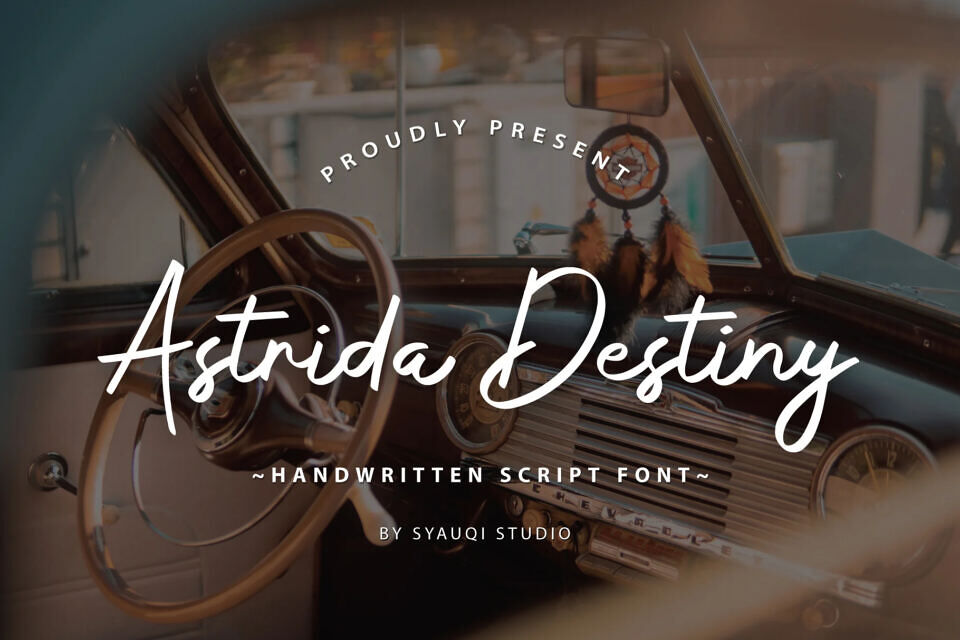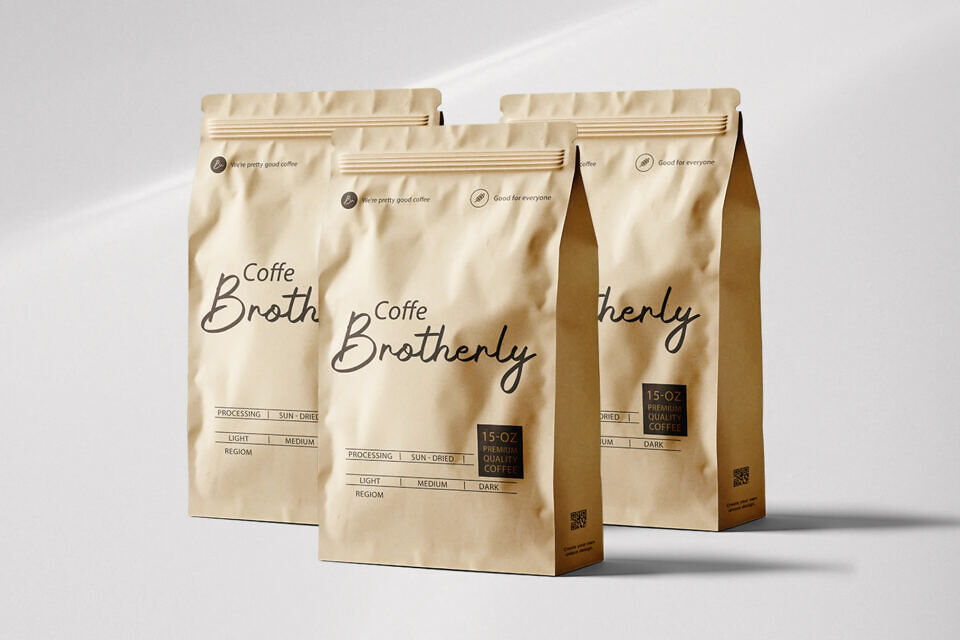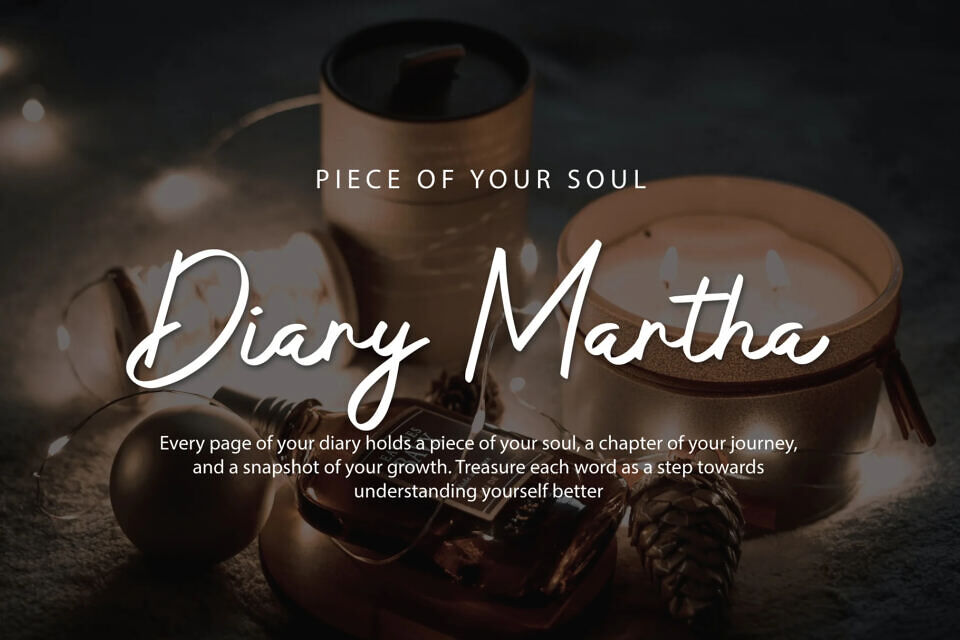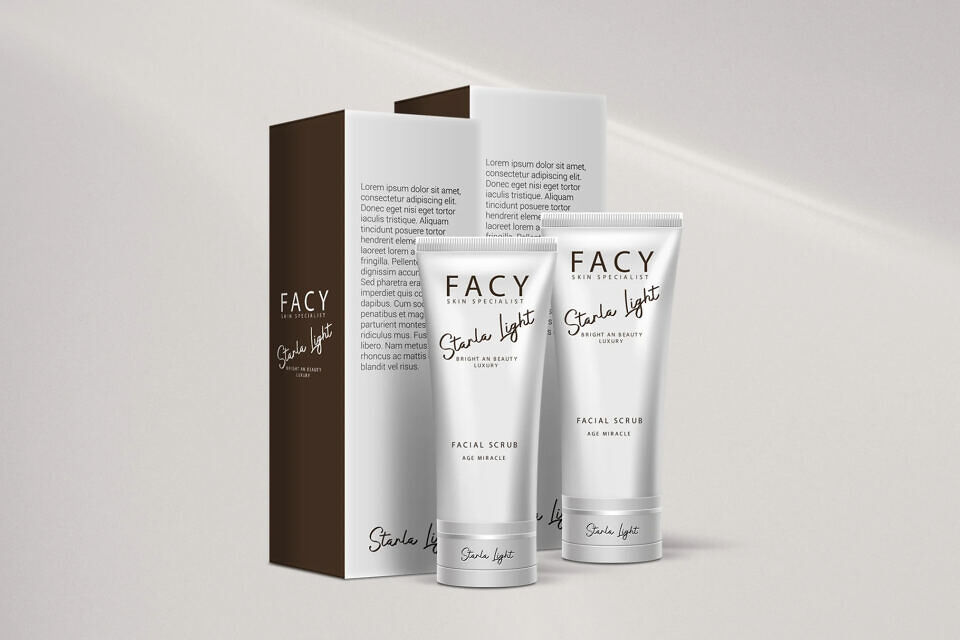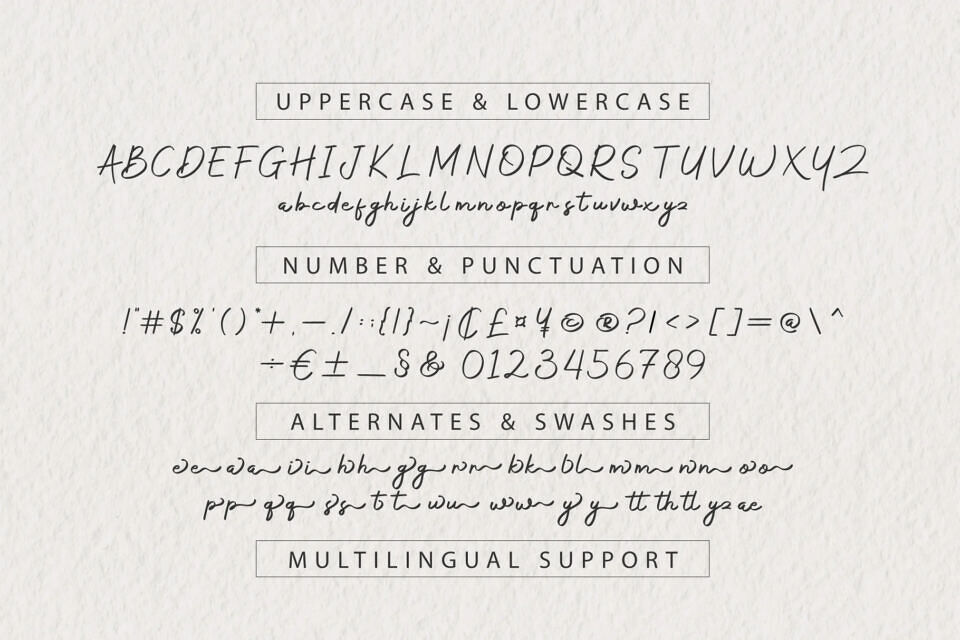
Astrida Destiny Font
Introducing Astrida Destiny font, where timeless elegance meets contemporary sophistication in the realm of script calligraphy fonts. Designed with meticulous attention to detail, Astrida Destiny seamlessly blends fluid, organic strokes with a touch of modernity, creating a typeface that exudes both grace and versatility.
Perfect for Brand Identity, Wedding Invitations, Product Packaging, Personal & Commercial Projects.